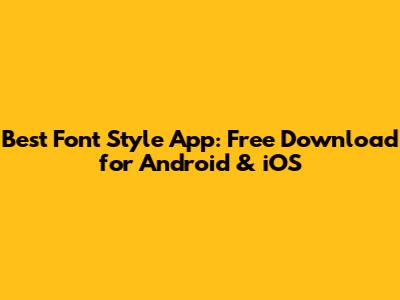
Hey guys! Are you tired of the same old boring fonts on your phone? Do you want to spice up your Instagram stories, social media posts, or even just your everyday texts? Well, you're in luck! In this article, we're diving deep into the world of font style apps, and I'm going to show you where you can snag the best ones for free on both Android and iOS. Let's get started and make your text stand out from the crowd!
Why You Need a Font Style App
Let's be real – default fonts are, well, default. They're functional, but they don't exactly scream personality. That's where font style apps come in! These nifty tools let you transform your text into something that reflects your unique style and creativity. Whether you're aiming for elegant, playful, futuristic, or downright quirky, there's a font out there for you. By using a font style app, you can significantly improve the visual appeal of your content.
Think about it: on social media, where everyone is fighting for attention, having eye-catching fonts can be a game-changer. A unique font can make your posts more noticeable, draw in more viewers, and help you establish a distinct brand identity. Plus, it’s just plain fun to play around with different styles and see what you can create! Font style apps aren't just for social media gurus or professional designers; they're for anyone who wants to add a little flair to their digital communication. From crafting the perfect Instagram caption to designing stunning graphics for your blog, the possibilities are endless. The right font can set the tone, convey emotion, and make your message more memorable.
And it’s not just about aesthetics, either. Different fonts can also improve readability and accessibility. Some fonts are specifically designed to be easier on the eyes, which can be a huge plus for people with visual impairments. By choosing the right font, you can ensure that your content is not only beautiful but also accessible to everyone. The impact of typography on user experience is undeniable, and font style apps put the power of great typography right at your fingertips. So, if you're ready to take your text to the next level, keep reading to discover the best font style apps you can download for free.
Top Font Style Apps for Android
Okay, Android users, listen up! The Google Play Store is overflowing with font style apps, but not all of them are created equal. I've sifted through the clutter to bring you the best of the best, so you can start stylizing your text right away.
1. Fonts Keyboard
Fonts Keyboard is a super popular choice, and for good reason. This app isn't just a collection of fonts; it's a custom keyboard that you can use across all your apps. This means you can easily switch between different fonts while typing emails, social media posts, or even text messages. The keyboard integrates seamlessly with your phone, so you don't have to copy and paste text from another app. Fonts Keyboard boasts a massive library of fonts, ranging from classic styles to trendy, modern designs. Whether you're looking for something elegant and sophisticated or something fun and quirky, you'll find it here. The app is also regularly updated with new fonts, so you'll never run out of options.
One of the best things about Fonts Keyboard is its user-friendly interface. The app is incredibly easy to navigate, and finding the perfect font is a breeze. You can browse fonts by category, search for specific styles, or even create your own custom collections. The app also includes a preview feature, so you can see how your text will look before you commit to a particular font. Plus, Fonts Keyboard supports a variety of languages, so you can use it to stylize text in your native language. The customization options are extensive, allowing you to adjust the size, color, and spacing of your fonts. This level of control ensures that your text looks exactly how you want it. And if you're worried about compatibility, don't be! Fonts Keyboard works with most popular apps, including Instagram, TikTok, Snapchat, and WhatsApp. You can even use it to create stylish bios and captions for your social media profiles.
2. Stylish Text
Stylish Text is another fantastic option for Android users who want to add some flair to their text. Unlike Fonts Keyboard, Stylish Text doesn't replace your keyboard. Instead, it works as a standalone app that generates stylized text that you can then copy and paste into other apps. This might sound like an extra step, but it actually offers some unique advantages. Stylish Text is incredibly versatile and supports a wide range of text styles, including cursive, gothic, bold, italic, and more. You can even create your own custom styles using the app's built-in editor. The app also includes a variety of decorative elements, such as symbols, emojis, and ASCII art, which you can use to further enhance your text.
One of the coolest features of Stylish Text is its ability to create floating bubbles that allow you to quickly access different text styles. This means you can easily switch between styles without having to open the app every time. The app also includes a direct chat option, which allows you to send stylized text directly to your contacts via WhatsApp or other messaging apps. Stylish Text is also highly customizable, allowing you to adjust the size, color, and spacing of your text. You can even create your own custom themes to personalize the app's interface. And if you're looking for inspiration, the app includes a gallery of user-created styles that you can browse and use. Plus, Stylish Text is lightweight and doesn't consume a lot of battery, so you can use it without worrying about draining your phone's power. The app is also regularly updated with new styles and features, ensuring that you always have something fresh to try.
3. Fontsy
Fontsy is a relative newcomer to the font style app scene, but it's quickly gaining popularity for its clean interface and extensive font library. This app offers a wide variety of fonts, ranging from classic styles to modern, hand-drawn designs. Fontsy also includes a collection of symbols and emojis that you can use to add some extra personality to your text. One of the standout features of Fontsy is its real-time preview, which allows you to see how your text will look in different fonts before you even type it. This is a huge time-saver, as it eliminates the need to constantly switch between fonts to find the perfect one. The app also includes a built-in keyboard, so you can use it across all your apps without having to copy and paste text. Fontsy is also highly customizable, allowing you to adjust the size, color, and spacing of your fonts.
You can even create your own custom backgrounds for your text. The app also includes a variety of sharing options, allowing you to easily post your stylized text to social media or send it to your friends via messaging apps. Fontsy is also designed to be battery-friendly, so you can use it without worrying about draining your phone's power. The app is also regularly updated with new fonts and features, ensuring that you always have something fresh to try. Plus, Fontsy offers a premium subscription that unlocks even more fonts and features, including ad-free access and priority support. The app is also incredibly easy to use, even for beginners. The interface is clean and intuitive, and the app provides helpful tips and tutorials to guide you through the process of creating stylized text. With its extensive font library, real-time preview, and user-friendly interface, Fontsy is definitely worth checking out.